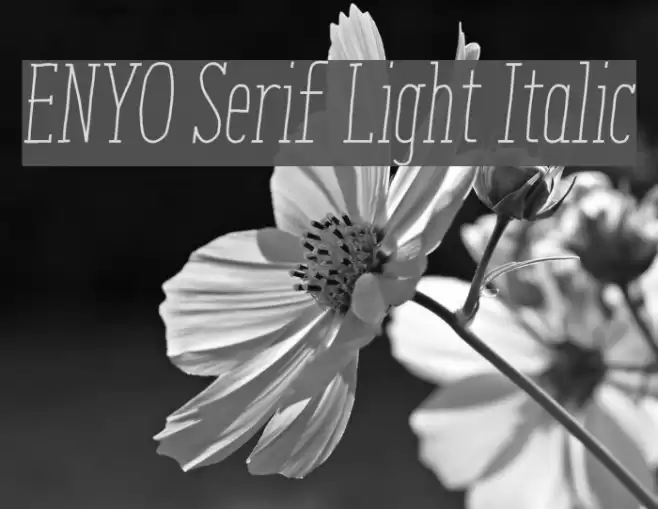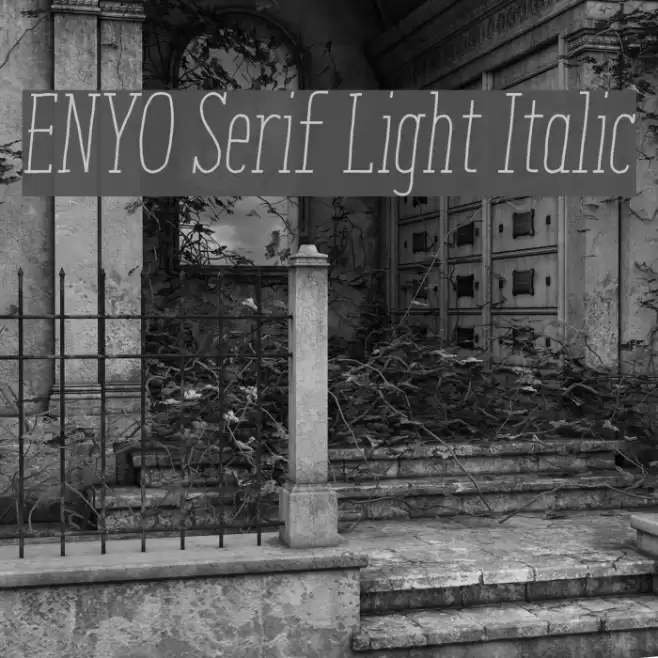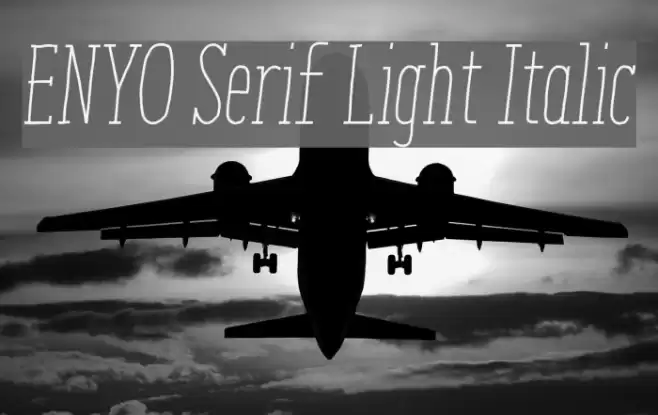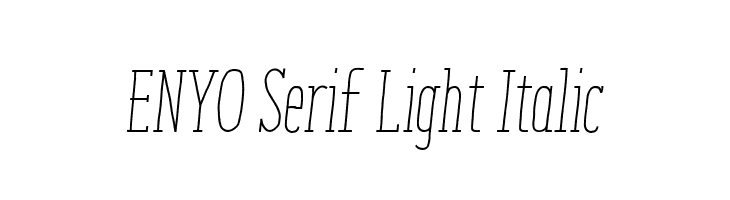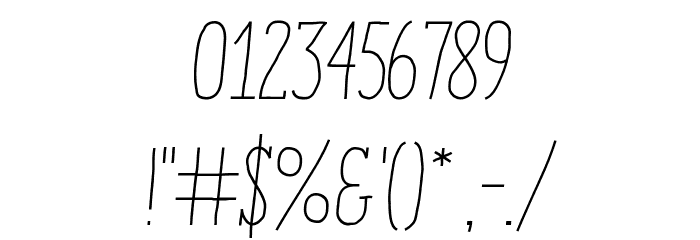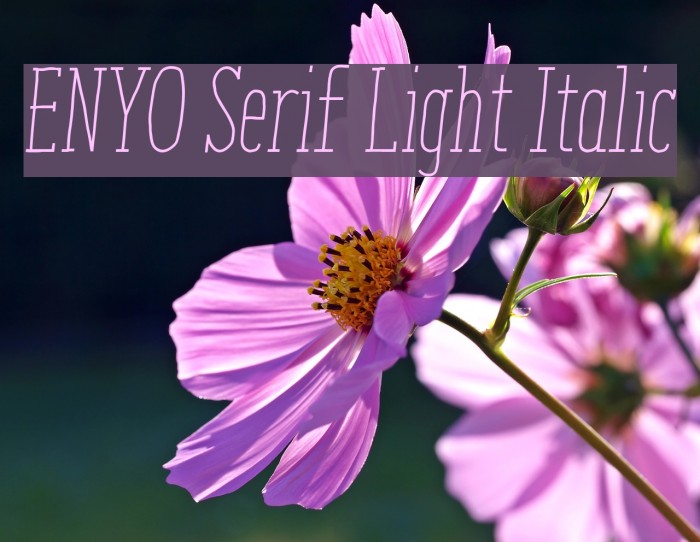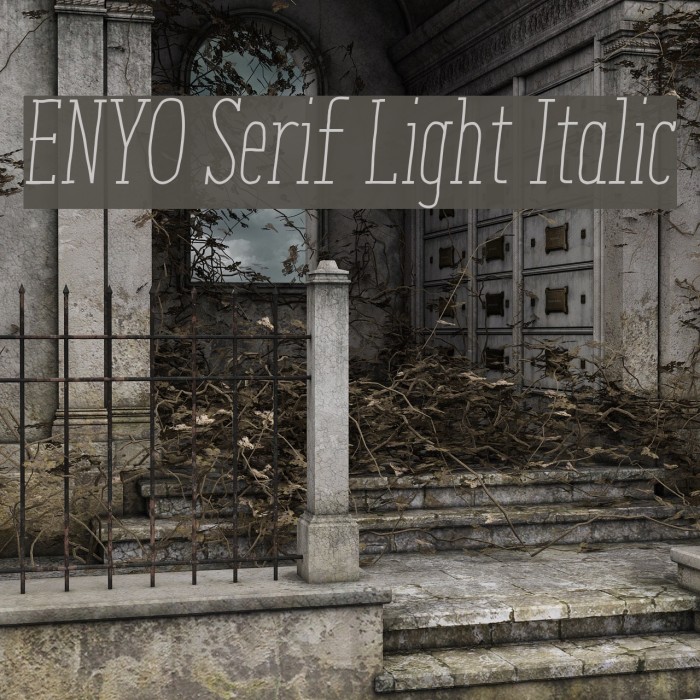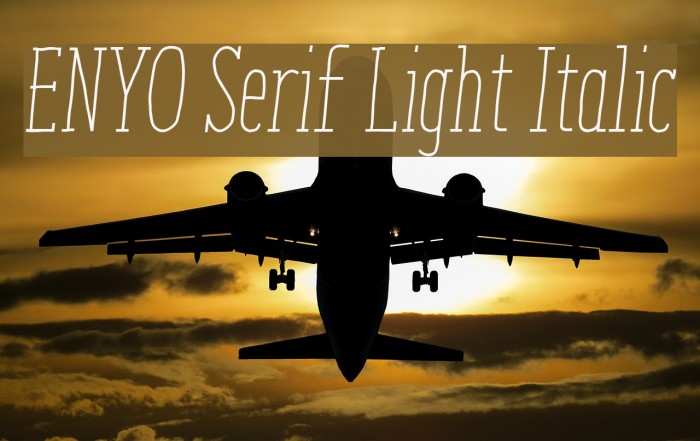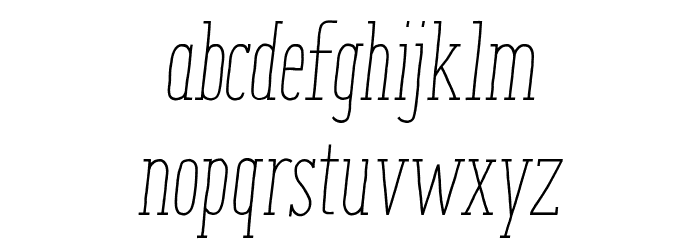
ENYO Serif Light Italic Font
ENYO Serif Light Italic Description
This font features a refined and elegant serif style with a light weight and italic posture. The characters are elongated with a slight slant, giving them a sophisticated and graceful appearance. The serifs are subtle and add a touch of classic elegance without overpowering the overall design. The font maintains a consistent stroke width, contributing to its light and airy feel. It is well-suited for projects that require a touch of elegance and readability.
A refined serif font with a light, italic style and subtle elegance from Handwritten fonts.
- Font: ENYO Serif Light Italic
by antipixel - Weight: Light Italic
- Proposed Projects: Ideal for wedding invitations, elegant branding, editorial design, and sophisticated advertising materials.
- Weight: Light
- Overall Style: Classic